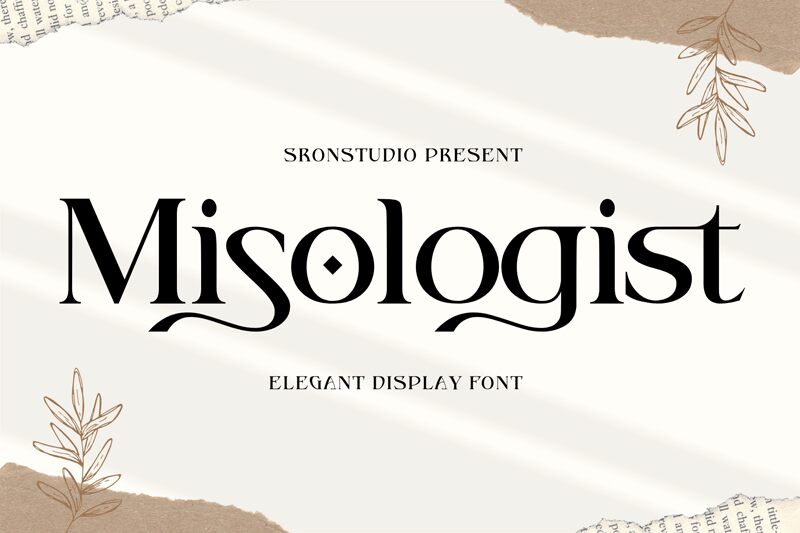
Misologist
Misologist is a stunning display font created by sronstudio. With its elegant and modern touch, this retro serif font is perfect for a wide range of projects.
For branding, Misologist adds a sophisticated and timeless feel to logos, business cards, and websites. Its vintage charm makes it ideal for invitations and stationery, adding a touch of class to any event. Social media posts and advertisements can benefit from the font's unique style, making them stand out in a crowded digital landscape. Product packaging and designs will also benefit from the font's versatility, giving them an eye-catching appeal.
Whether you're a photographer looking for an elegant watermark or planning a special event that needs an extra dose of elegance, Misologist is the perfect choice to elevate your design projects to new heights of visual excellence.